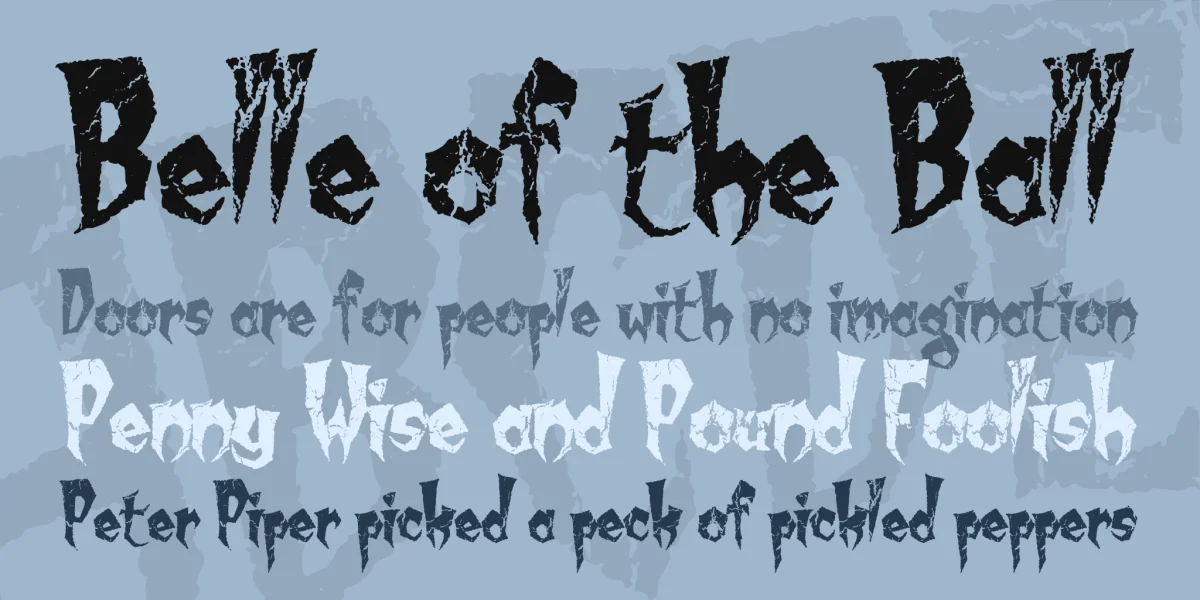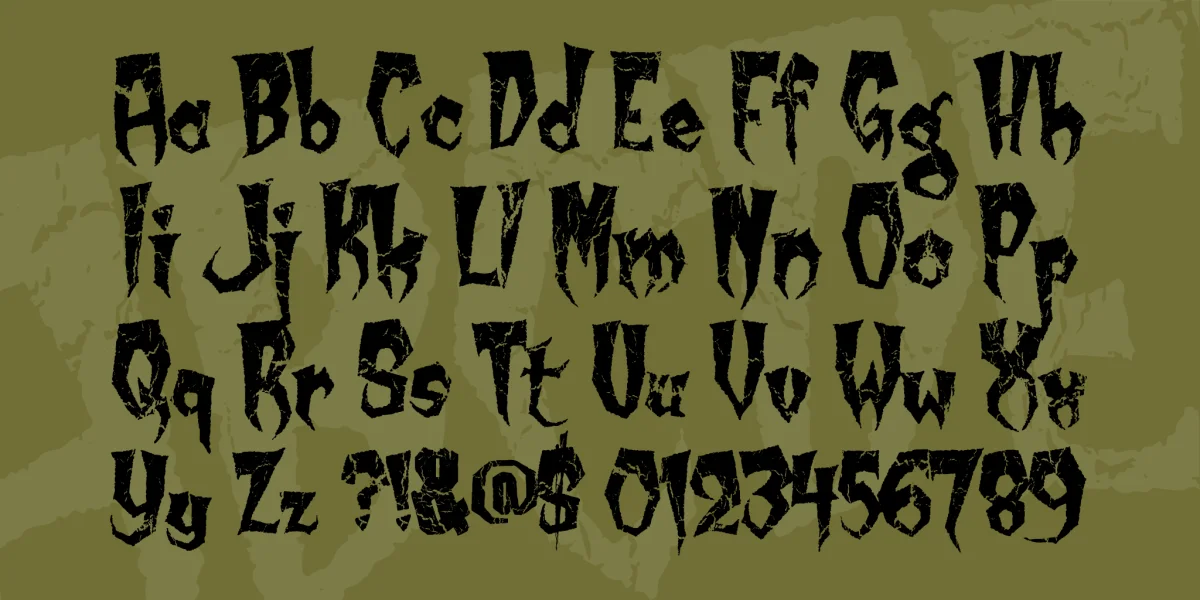
Created 2005, hand-lettered for 1313 Magazine [rejected design]. This is a free font, and I mean FREE. Use it however you want, for whatever you want. If you make something cool with it, I'd love to see it - email me at  and tell me about it. If you offer it for download on your own font site, PLEASE include this Read Me. That's not too much to ask, is it? This font is intended for specialty and graphic uses. It will look just awful if used in a paragraph format. For more free fonts and other downloadable goodies, visit www.sinisterfonts.com.